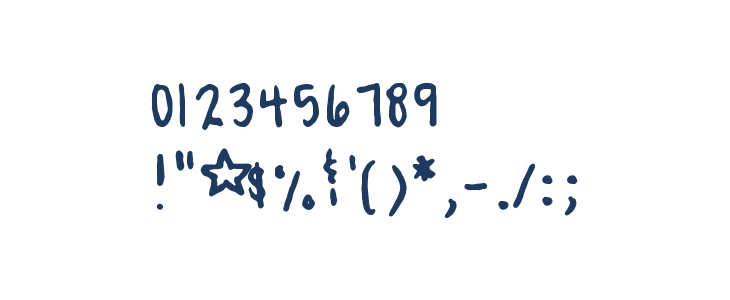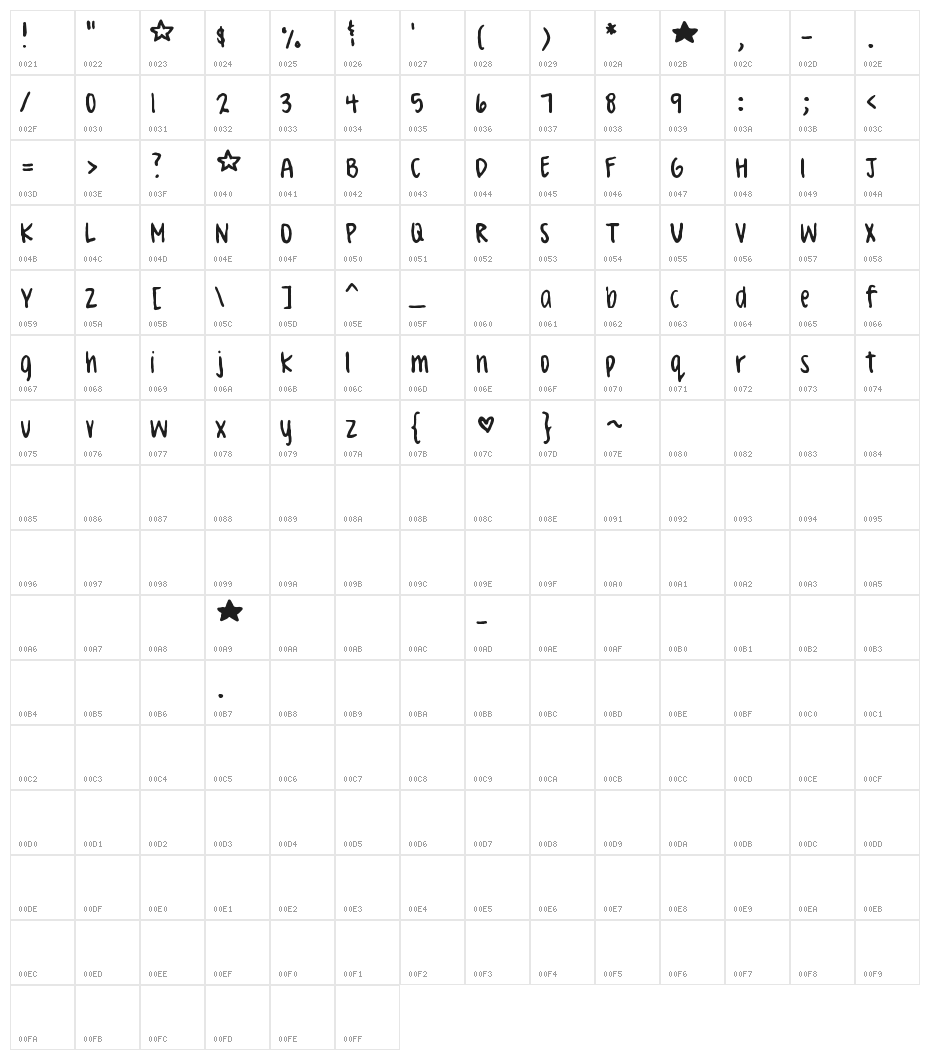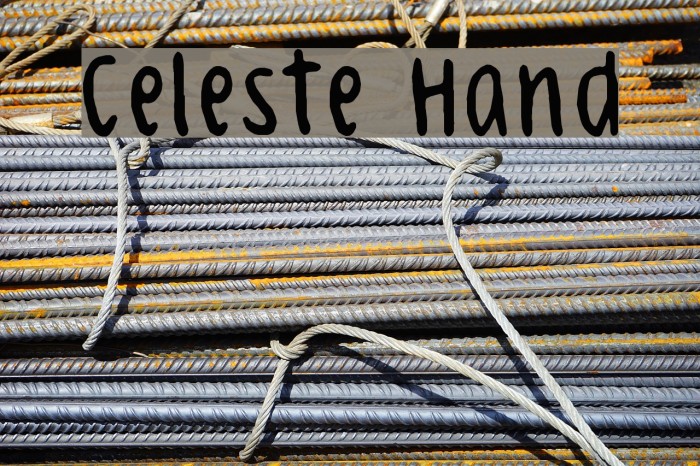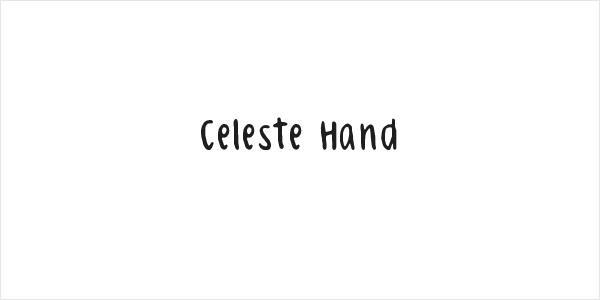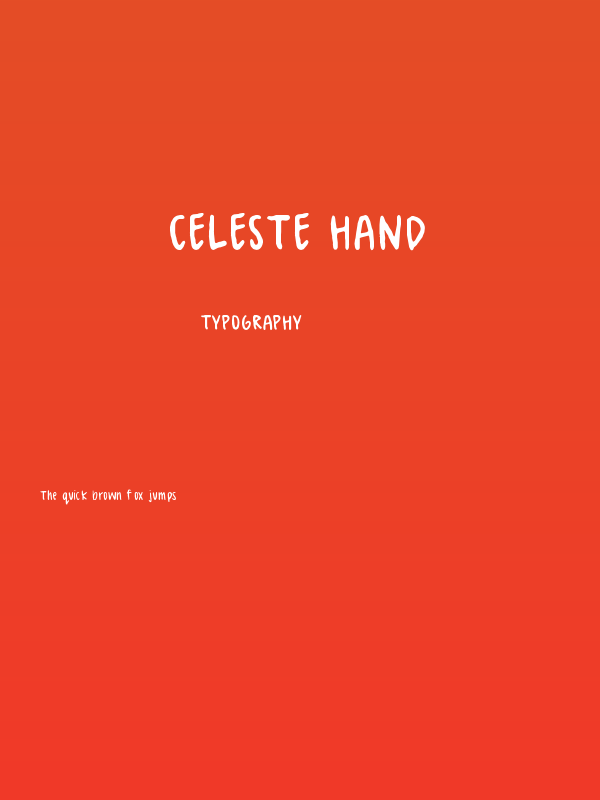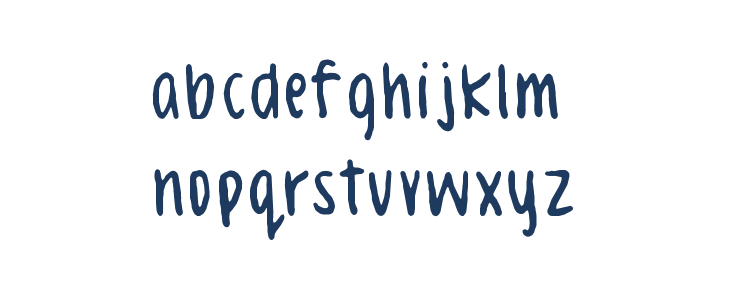
Celeste Hand Font
Celeste Hand Description
This font exudes a playful and casual handwritten style, characterized by its irregular strokes and slightly uneven baseline, which gives it a personal and informal touch. The letters are bold and rounded, with a consistent thickness that maintains readability while adding a whimsical flair. The uppercase and lowercase letters are well-proportioned, and the numbers follow the same playful aesthetic. Special characters are included, enhancing its versatility for various design needs. This font is ideal for projects that require a friendly and approachable feel, such as children's books, greeting cards, or casual branding.
| Proposed Projects | Ideal for children's books, greeting cards, casual branding, and playful design projects. |